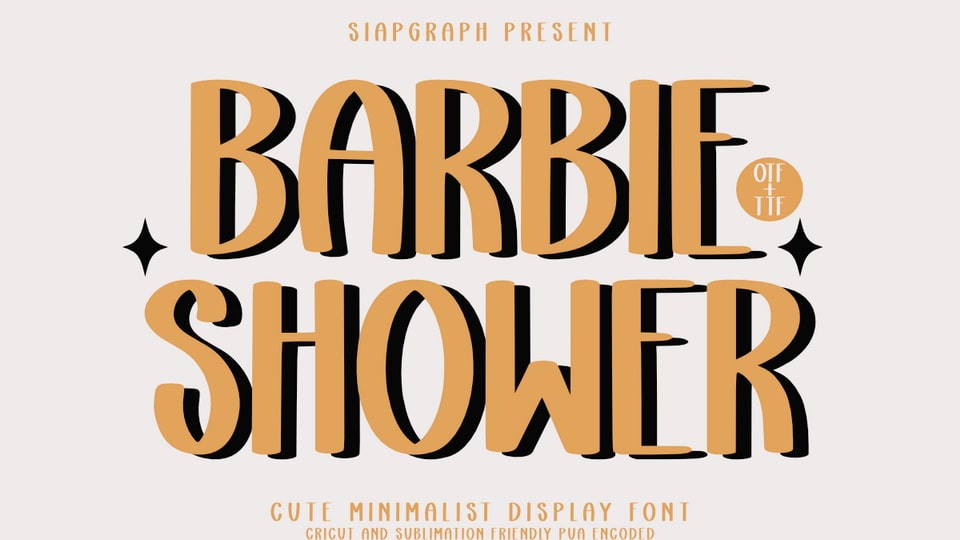
Download Barbie Shower font, a cute minimalist display typeface designed specifically for creative needs such as sublimation, printable design, crafting, and DIY projects.
Designer: SiapGraph